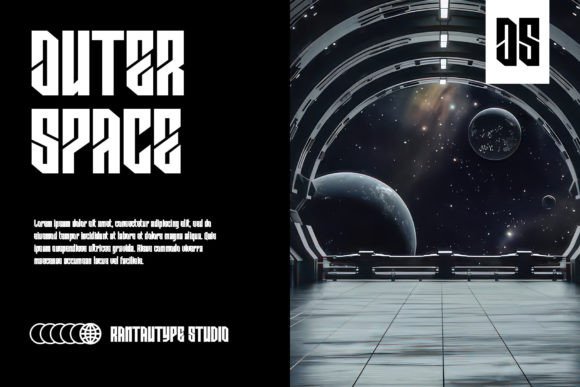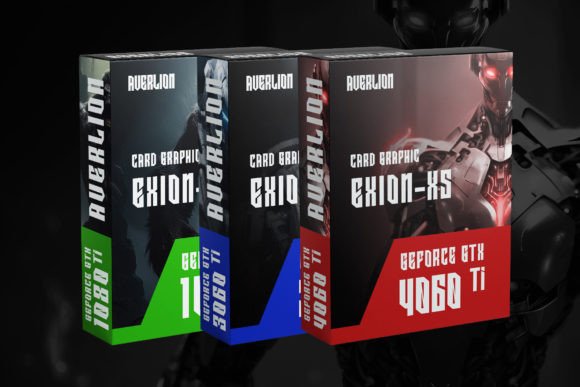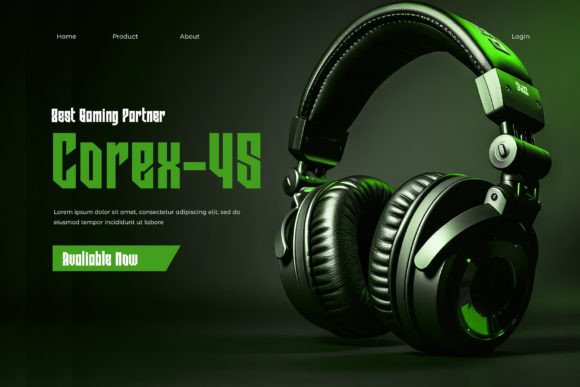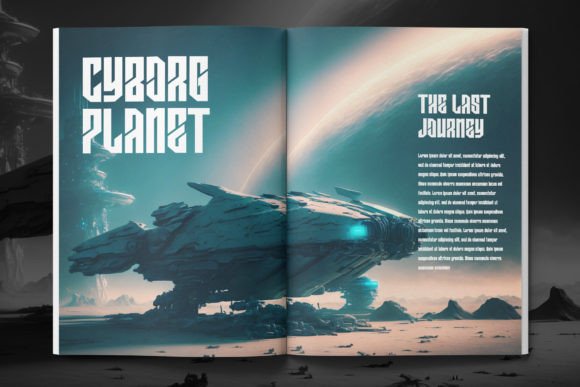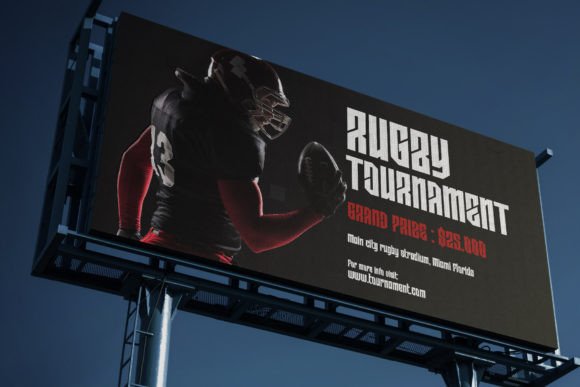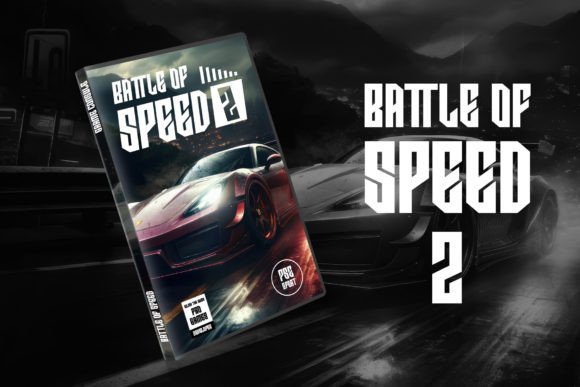
Introduction to Outerion Font
As a designer, you’ve probably found yourself staring at a blank canvas, searching for the perfect font to bring your creative vision to life. It’s that moment of excitement and frustration, when you know exactly what you want, but can’t quite find the right tool to make it happen. That’s where the Outerion Font comes in – a game-changing design resource that’s about to revolutionize the way you approach your next project.
With its sleek, futuristic design inspired by technology, games, and sports, the Outerion Font is the perfect choice for any high-quality design endeavor. Whether you’re working on a logo, advertisement, or corporate brand, this font is sure to give your project a modern, sporty twist that’s sure to stand out. And the best part? It’s free to download, making it an accessible and valuable resource for designers of all levels.
Imagine having a font that not only looks great, but also offers a transparent background, making it easy to customize and integrate into any design. That’s what you get with the Outerion Font – a high-quality, versatile design tool that’s sure to elevate your creative projects to the next level.
Key Features of Outerion Font
- Unique, futuristic design perfect for creative projects, including sci-fi and space-themed concepts.
- Includes multiple font styles, including bold, regular, and italic, providing versatility for various design applications.
- Perfect for use in digital design projects, including logos, icons, and typography for websites, apps, and other creative endeavors.
Honest Review: Outerion Font
I recently stumbled upon the Outerion Font, and I must say, it’s a fantastic addition to any design resource collection. ✨
One of the standout features of this font is its high quality and versatility. It’s perfect for a wide range of creative projects, from logos and branding to web design and publishing.
- No extended character set (limited support for non-English languages)
Overall, I’m impressed with the Outerion Font. It’s a solid choice for any designer looking for a reliable, high-quality font. While it may not be perfect, its strengths far outweigh its weaknesses, making it a valuable addition to any design resource collection.
The Outerion Font is perfect for creative projects such as logos, business cards, and brochures. It’s also great for presentations and documents that require a high-quality, professional look.